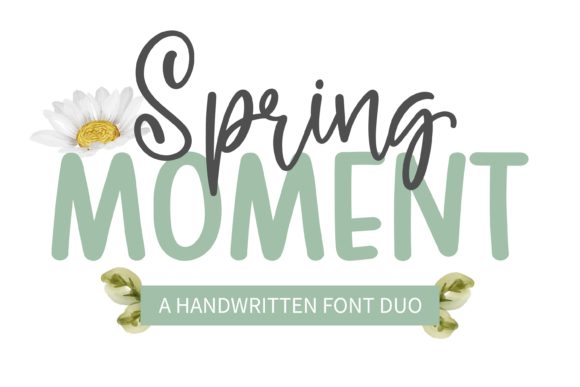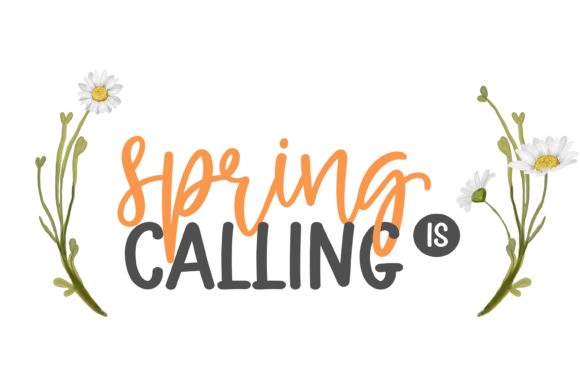
About Spring Moment Font
Spring Moment is a versatile and enchanting duo-styled font that effortlessly blends the elegance of a script font with the simplicity of a sans serif. This font duo is designed to add a touch of charm and delicacy to your creative projects, making them truly standout and captivating.
With its PUA encoding, accessing the wide array of glyphs and swashes in Spring Moment is a breeze, offering you a plethora of design possibilities. Whether you’re working on invitations, branding, logos, headlines, social media posts, or any other creative venture, this font duo is your perfect companion.
The script style of Spring Moment exudes a sense of fluidity and grace, resembling handwritten calligraphy. Its beautifully crafted letters dance along the baseline, adding an element of sophistication and artistic flair to your designs. This script font is perfect for adding a personal touch to wedding invitations, greeting cards, and elegant branding projects.
The sans serif variant of Spring Moment provides a clean and modern counterpoint to the script style. Its simplicity and clarity make it ideal for conveying information clearly in headings, titles, and captions. The harmonious combination of script and sans serif allows you to create visually appealing contrasts and dynamic layouts.
Spring Moment is more than just a font – it’s a creative tool that empowers you to transform your ideas into captivating visuals. Whether you’re aiming for a romantic and whimsical vibe or a sleek and contemporary look, Spring Moment offers the flexibility and charm to bring your creative visions to life.
In conclusion, Spring Moment is a duo-styled font that effortlessly combines charm and delicacy, making it an excellent choice for various creative projects. Its PUA encoding ensures easy access to a plethora of design elements, and its ability to create standout visuals will leave a lasting impression on your audience. With Spring Moment in your toolkit, every creative endeavor is bound to flourish.